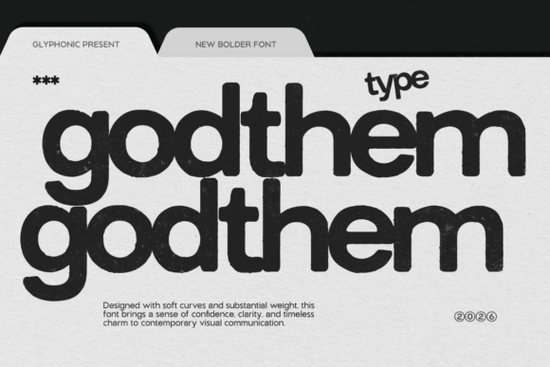
If you're working on a design that needs to shout not whisper Godthem Font might be exactly what you’re looking for. This bold display sans-serif typeface combines modern clarity with gritty, worn textures that give it serious attitude. Whether you’re designing merch for a punk band, creating streetwear branding, or adding punch to an editorial layout, Godthem delivers visual impact without sacrificing legibility.
What sets Godthem apart is how it balances structure and chaos. The letterforms are strong and geometric, rooted in contemporary sans-serif design, but each character carries subtle (and sometimes not-so-subtle) grunge distressing. Think chipped edges, ink splatters, and uneven strokes details that make your headlines feel alive and rebellious. It’s not just another bold font; it’s a statement piece.
When should you use Godthem Font?
Godthem works best when you want your message to stand out with confidence and edge. Here are a few real-world uses where it truly shines:
- Music posters and album art – especially for rock, metal, hip-hop, or underground genres where raw energy matters.
- Streetwear and apparel designs – logos, slogans, or back prints that demand attention.
- Editorial headlines in zines, magazines, or online features covering counterculture, fashion, or urban lifestyle topics.
- Social media graphics for brands with a bold, unapologetic voice.
Because of its heavy weight and distressed details, it’s best reserved for short text headlines, logos, quotes, or single words. Avoid using it for body copy or small sizes; the texture can become muddy and hard to read.
How does it compare to other bold sans-serifs?
Not all bold fonts carry the same personality. For example, Fantastic Moment leans playful and energetic but stays clean and smooth great for upbeat branding but lacking the grit Godthem offers. On the other hand, Modern Limited gives you minimalist sophistication, ideal for luxury or tech-focused projects where subtlety wins.
If you’re drawn to vintage rebellion but still want readability, Godthem sits in a sweet spot between chaos and control. It’s more aggressive than Hippie Font, which embraces flowing, organic shapes and 70s-inspired softness. Godthem doesn’t do “chill” it does “in-your-face.”
Tips for pairing and styling
Because Godthem is so dominant, pair it with neutral, clean typefaces to avoid visual overload. A simple sans-serif like Helvetica, Inter, or even a thin geometric font creates contrast while letting Godthem take center stage.
Color choices also matter. Try high-contrast combinations: black on white, white on black, or even neon against dark backgrounds for that underground concert vibe. You can also layer it over gritty photo textures or concrete backgrounds to amplify its raw aesthetic.
For print-on-demand sellers, this font works exceptionally well on:
- T-shirts and hoodies (especially oversized fits)
- Stickers and patches
- Poster prints and wall art
- Branded tote bags or skate decks
Just remember: test your mockups at actual size. What looks sharp on screen might lose detail when printed small.
Is Godthem right for your project?
Ask yourself: Does your brand or message need to feel fearless, loud, and slightly untamed? If yes, Godthem could be a perfect match. But if you’re going for elegance, minimalism, or warmth, you might want to explore alternatives like Modern Limited or even Hippie Font depending on your vibe.
Also consider your audience. Gen Z streetwear fans? Underground music lovers? Skateboarders? Activists? These groups often respond well to typography that feels authentic and unpolished exactly what Godthem delivers.
Before you commit, preview the font in context. Creative Fabrica lets you test drive fonts with their built-in editor, so you can see how “REBEL” or “RISE” actually looks in your layout before downloading.
Quick checklist before using Godthem Font:
- ✅ Use only for headlines, logos, or short phrases
- ✅ Pair with a clean, simple secondary font
- ✅ Avoid light backgrounds with low contrast
- ✅ Test print or mockup at real-world size
- ✅ Confirm your brand voice matches its bold, gritty energy
If everything lines up, Godthem won’t just add style it’ll add soul to your design.